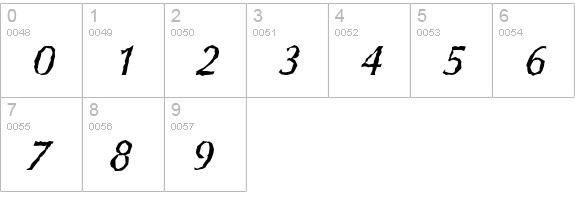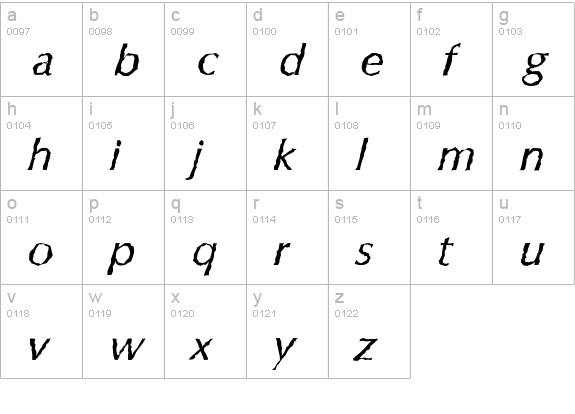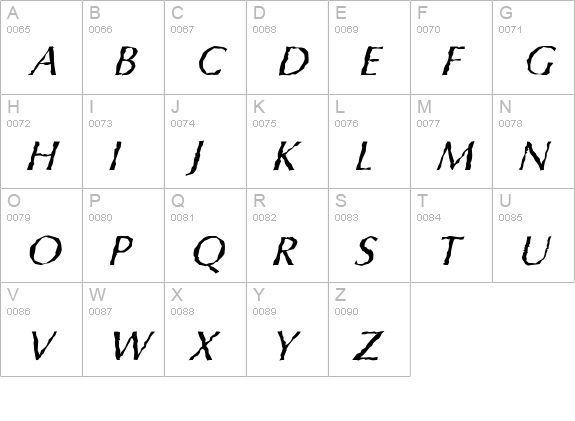
ColumbiaRandom-Italic Font Details
ColumbiaRandom-Italic is a distinctive, italic variant in the ColumbiaRandom typeface family \xE2\x80\x94 well suited to design and typography projects.
ColumbiaRandom-Italic is a beautifully designed and unique font that exudes creativity and style. With its playful yet elegant italic style, this font is perfect for adding a touch of flair to your projects. Whether you are designing invitations, posters, or branding materials, ColumbiaRandom-Italic will surely make your text stand out. What makes ColumbiaRandom-Italic even more appealing is that it is completely free to download at FontsMarket.com. This means you can easily access this eye-catching font and use it in your designs without any cost. Don't miss out on this wonderful opportunity to enhance your projects with the charm of ColumbiaRandom-Italic. Download it today and let your creativity soar!